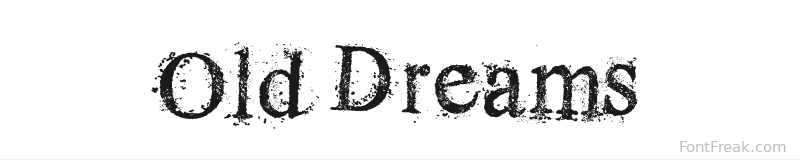
Old Dreams
About Old Dreams
The Old Dreams font by Galdino Otten Fonts is a captivating display typeface that embodies a nostalgic charm. Released in 2015, this font features a unique serif style that evokes a sense of whimsy and creativity. Its visual characteristics include a medium stroke weight with a slightly rough, textured finish that enhances its vintage appeal. The font exhibits moderate contrast, giving it a distinctive personality while maintaining legibility. The spacing is well-balanced, allowing for an inviting flow that draws the eye without overwhelming the reader.
Old Dreams is particularly versatile, making it suitable for a variety of applications. It shines in wedding invitations, where its romantic and dreamy aesthetic can set the perfect tone. Graphic designers can leverage its unique characteristics for art prints, adding a touch of nostalgia to their creations. Additionally, Old Dreams works wonderfully in restaurant menus, where it can create an inviting atmosphere that enhances the dining experience. It also makes a striking choice for movie posters, especially those in the fantasy or drama genres, where it can evoke emotion and intrigue. Content creators will find this font appealing for blog headers or social media graphics, as it adds a unique flair that grabs attention.
The target audience for Old Dreams includes graphic designers, small business owners, and content creators looking to infuse their projects with a sense of nostalgia and artistic flair. The Old Dreams font free download makes it accessible for anyone seeking to elevate their design work without compromising on quality.
What sets Old Dreams apart is its ability to blend a vintage aesthetic with modern usability, making it an ideal choice for those who wish to evoke a sense of longing and imagination in their designs. This font invites creativity, ensuring that every project feels both timeless and fresh.